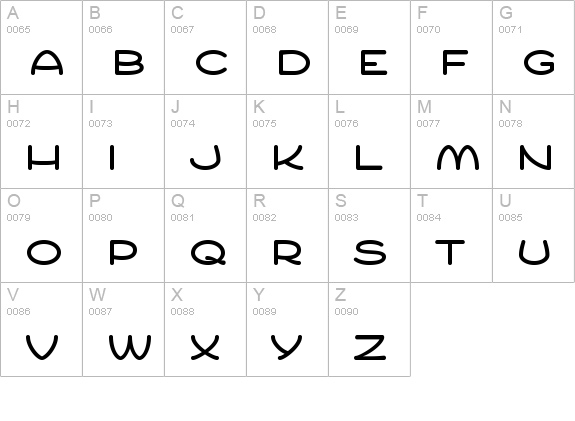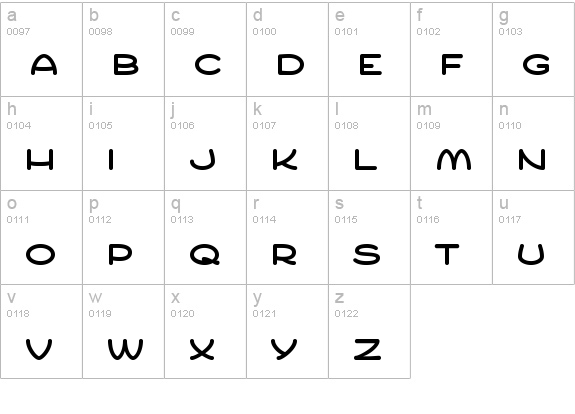
Compur-Regular is the standard, neutral variant in the Compur typeface family \xE2\x80\x94 well suited to general body text, paragraphs, and standard typographic work.
Compur-Regular is a stylish and versatile font that exudes a sense of modernity and sophistication. With its clean lines and balanced proportions, this typeface is perfect for a wide range of design projects, from branding to editorial design. The sleek and elegant appearance of Compur-Regular makes it an excellent choice for conveying a sense of professionalism and refinement. What sets Compur-Regular apart is not just its aesthetic appeal, but also the fact that it is available for free download at FontsMarket.com. This means that designers and creatives can easily access and use this high-quality font without any cost, making it a valuable addition to any design toolkit. Whether you're working on a website, a logo, a poster, or any other design project, Compur-Regular provides a clean and sophisticated look that will help elevate your work to the next level. Download it for free today and see how this versatile font can enhance your designs.